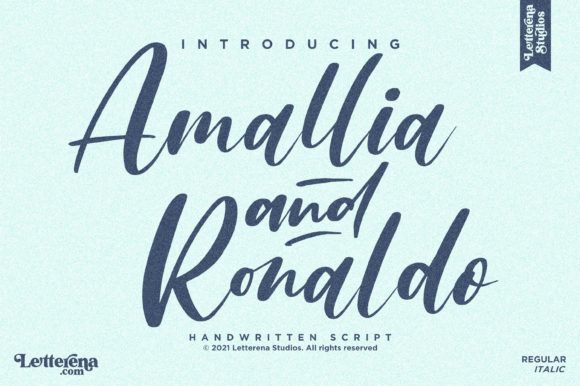
The Designer’s Delight: Amallia and Ronaldo Font
I’ll never forget the time I was working on a project for a client who wanted a elegant and sophisticated look. I had spent hours browsing through font libraries, but nothing seemed quite right. That was until I stumbled upon Amallia and Ronaldo, a beautiful handwritten font that featured sweet and delicate swashes. It was love at first sight! 💕
In this article, I’ll share my experience with Amallia and Ronaldo, including what I love about it, some quirks to watch out for, and how to get the most out of this gorgeous font.
- ✨ Elegant and dainty handwritten design
- 💫 Perfect for a wide range of crafty ideas, from letterheads and titles to stationery
- 🎨 Highly versatile and can be used for both digital and print projects
While Amallia and Ronaldo is an amazing font, there are a few things to keep in mind: 🤔
- ⚠️ Some swashes may not work well with certain letter combinations
- ⚠️ Font may not be suitable for very small text sizes
Amallia and Ronaldo was designed by a talented font designer who was inspired by the elegance and sophistication of handwritten calligraphy. The designer wanted to create a font that would capture the essence of beautiful handwriting, while also being highly versatile and easy to use.
The designer’s inspiration came from a combination of traditional calligraphy and modern digital design. The result is a font that’s both elegant and playful, with a unique character that will add a touch of sophistication to any project.
| Font Name | Amallia and Ronaldo Font |
| Author | Letterena Studios |